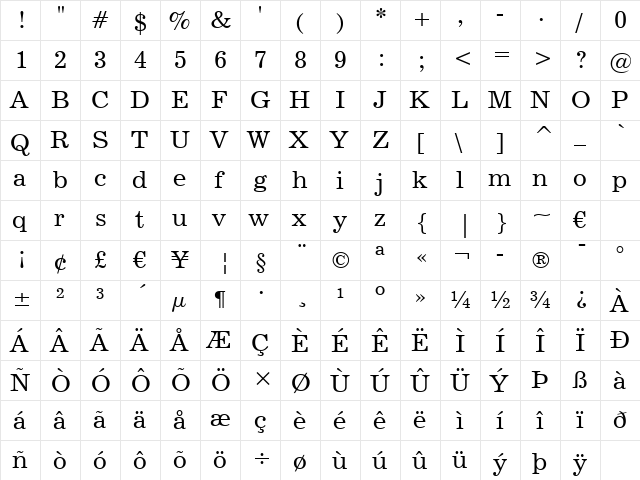
News702 BT Roman
Design Context for News702 BT Typeface
News702 BT takes a measured approach to typography — its balanced proportions and neutral character make it a reliable workhorse for both digital and print work.